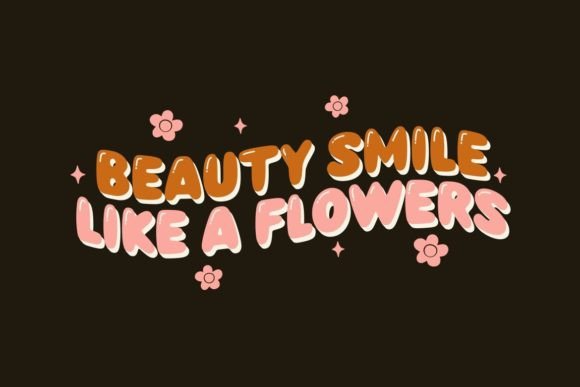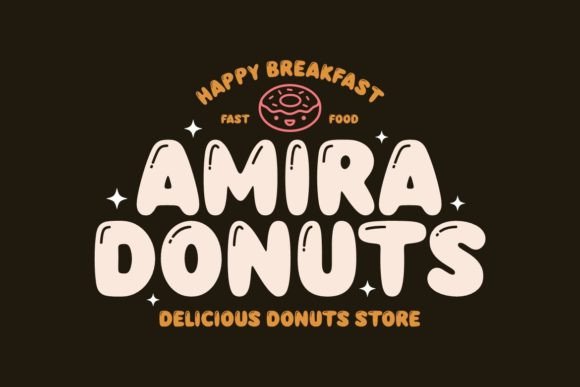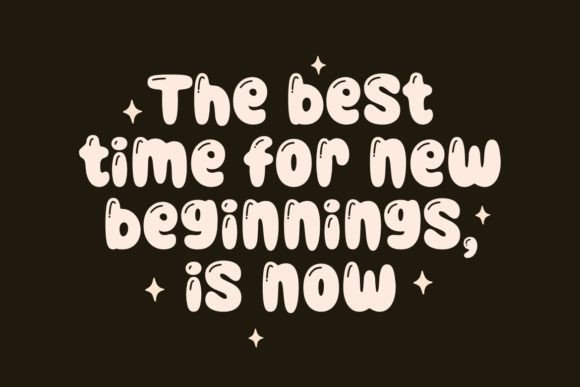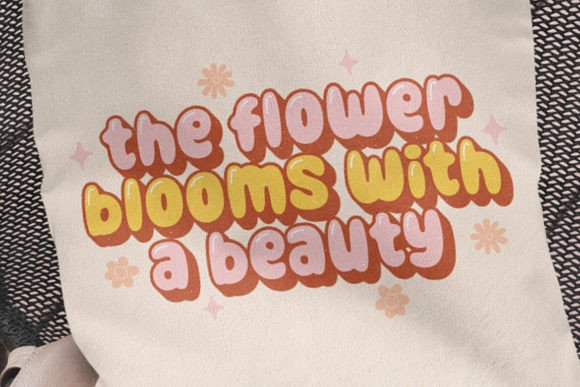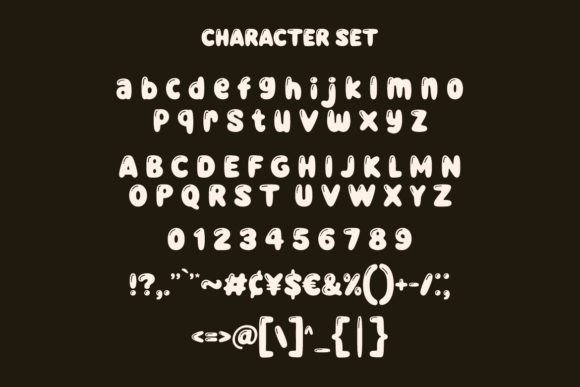
The Daily Bubble Font: A Modern, Bold, and Clean Design Essential
Have you ever been in the middle of a design project, and suddenly, you’re stuck on finding the perfect font? I recall a recent experience where I was working on a branding project for a trendy new cafe, and I just couldn’t find a font that captured the modern, bubbly vibe they were looking for. That’s when I stumbled upon the Daily Bubble font, and it completely transformed my design. In this article, we’ll dive into the world of Daily Bubble, exploring its features, uses, and everything in between.
A Personal Review: What I Love About Daily Bubble
So, what makes Daily Bubble so special? Here are a few things that I absolutely love about this font:
- ✨ Modern and bold: Daily Bubble has a fresh, contemporary feel that’s perfect for making a statement.
- ✅ Clean and decoration versions: The font comes in two versions – a clean and a decoration version, giving you flexibility and options.
- 🌎 Multi-lingual support: With support for multiple languages, you can use Daily Bubble for projects that cater to a global audience.
- 📚 Complete character set: The font includes a wide range of characters, from uppercase and lowercase letters to numbers, punctuation marks, and more.
While Daily Bubble is an excellent font, there are a few minor quirks to be aware of:
- 🤔 Glyphs and OpenType features: While the font supports OpenType features, some users might find the glyphs and stylistic alternates a bit tricky to navigate.
- ⚠️ Legibility at small sizes: As with many bold fonts, Daily Bubble might lose legibility when used at very small sizes.
While the true story behind Daily Bubble’s creation is unknown, it’s easy to imagine that the designer was inspired by the world of modern design. Perhaps they were drawn to the playful, bubbly vibe of children’s toys and packaging, and wanted to create a font that captured that same sense of fun and energy.
- Q: What type of projects is Daily Bubble best suited for?
- A: Daily Bubble is perfect for logotypes, stickers, packaging design, Cricut projects, headlines, brand identity, t-shirts, posters, magazines, books, and more.
- Q: Is Daily Bubble available in other languages?
- A: Yes, Daily Bubble supports multiple languages, making it a great choice for global projects.